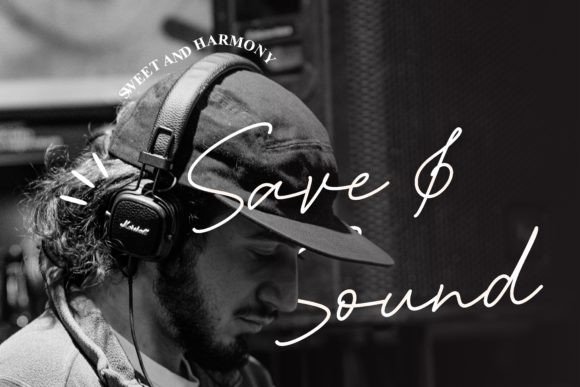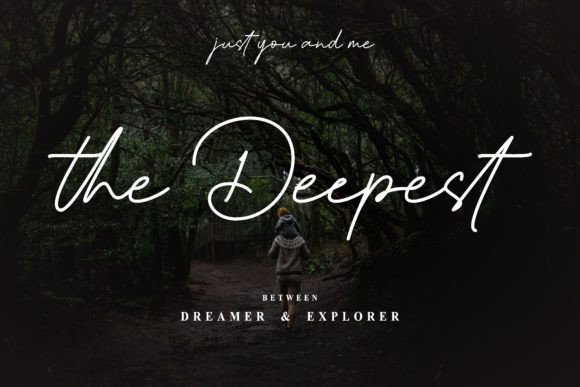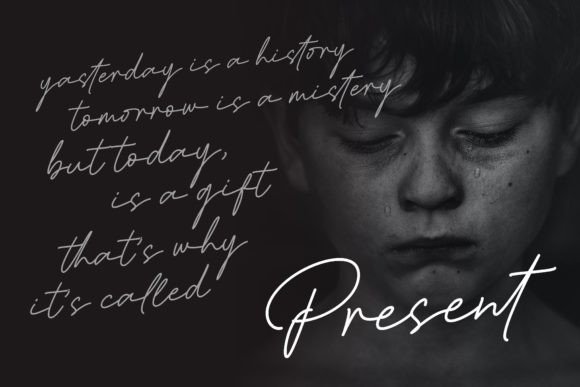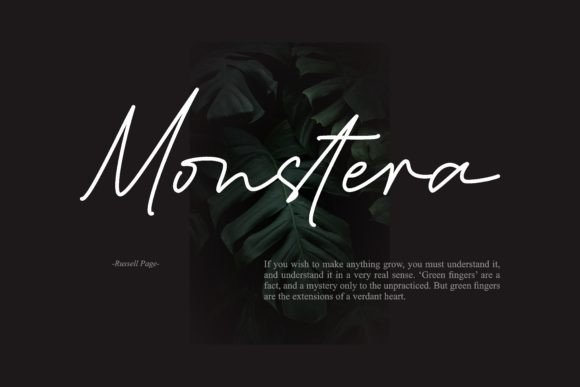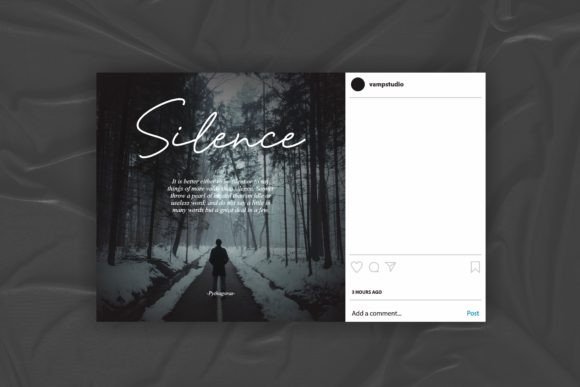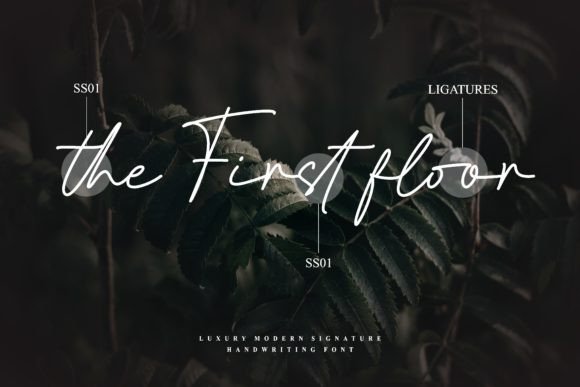
Introduction to Le Marshall Font
Have you ever stared at a blank canvas, waiting for the perfect idea to strike? As a designer, those moments of creative clarity can be fleeting – but the right tools can help spark the magic. For those who crave a handwritten touch in their work, the Le Marshall Font is about to become your new best friend.
This script font is a game-changer for designers looking to add a personal, high-quality feel to their creative projects. With its versatility and unique charm, Le Marshall Font is perfect for photography watermarks, social media posts, advertisements, logos, and branding – making it an invaluable design resource for any project.
What sets Le Marshall Font apart is its ease of use and flexibility. Whether you’re working on a special event invitation, product packaging, or a wedding design, this font is sure to add a touch of sophistication and elegance. And the best part? You can download it for free, complete with a transparent background, making it a must-have for any designer looking to elevate their work.
Key Features of Le Marshall Font
- High-quality design resource with a unique, modern style, perfect for creative projects.
- Designed to be highly legible, even at small font sizes, making it suitable for use in a variety of applications.
Honest Review: Le Marshall Font
I recently stumbled upon the Le Marshall Font, and I’m excited to share my thoughts on this design resource. As a designer, I’m always on the lookout for high-quality fonts to elevate my creative projects.
The Le Marshall Font is a beautiful, elegant script font that works well for a variety of applications, from wedding invitations to branding materials. ✨ I love how the font’s flowing lines and subtle flourishes add a touch of sophistication to any design. The transparent background also makes it easy to combine with other design elements.
Here are some pros and cons I’ve observed:
- ✨ Beautiful, elegant script design
- ✨ Works well for a variety of applications
- ⚠️ Limited language support (only Western languages)
- ⚠️ May require additional styling to achieve desired look
Overall, I’m impressed with the Le Marshall Font. It’s a high-quality design resource that can add a touch of elegance to any creative project. If you’re looking for a beautiful script font, I’d definitely recommend giving it a try.
How to Use Le Marshall Font
Le Marshall Font is a high-quality, free design resource ideal for creative projects. It features a transparent background and is perfect for adding a touch of sophistication to your designs.
Tips for Getting the Most Out of Le Marshall Font
To get the most out of Le Marshall Font, experiment with different font sizes, colors, and combinations. You can also use it to create custom graphics and text overlays for your designs.
Le Marshall Font is perfect for a variety of creative projects, including branding, marketing materials, and website design. It’s also great for adding a touch of sophistication to your social media graphics and presentations.